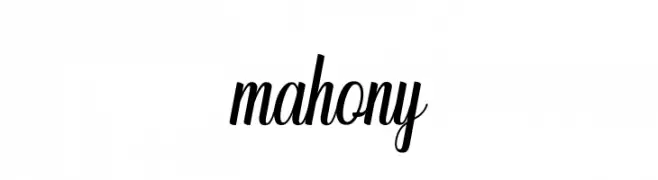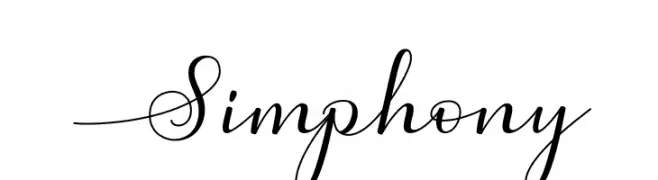
A dynamic, cursive script font with an elegant, italicized style.
A flowing, cursive font with elegant curves and a sophisticated style.
A dynamic, brush-style italic font with expressive strokes.
A bold, expressive brush script font with dynamic strokes and a hand-painted look.
An elegant, flowing script font with a refined, handwritten style.
A playful handwritten font with smooth, rounded strokes and a lively appearance.
A dynamic and fluid script font with elegant, interconnected letters.
A modern, elegant script font with a dynamic slant and smooth curves.
An elegant script font with flowing, cursive letterforms and decorative flourishes.
A graceful and ornate script font with flowing cursive letters and decorative flourishes.